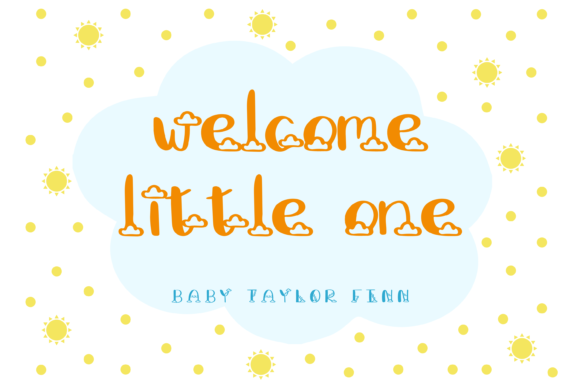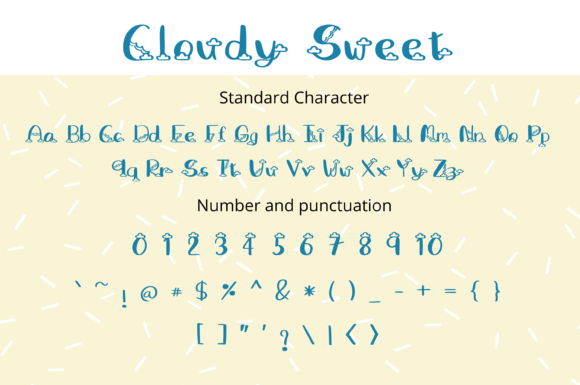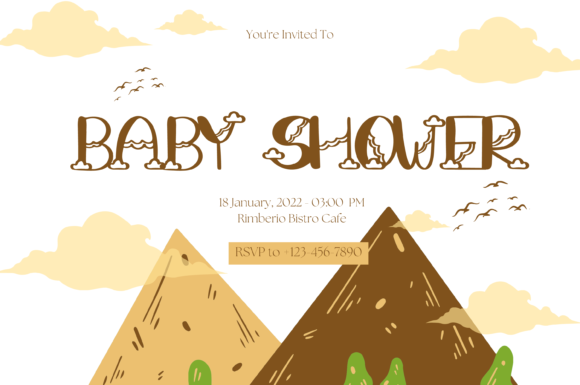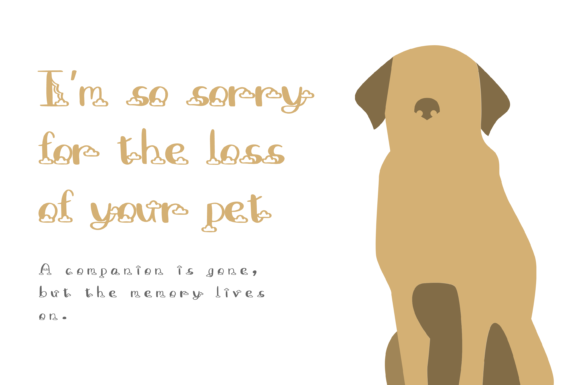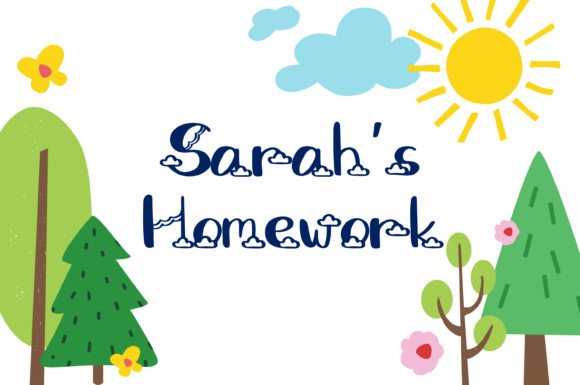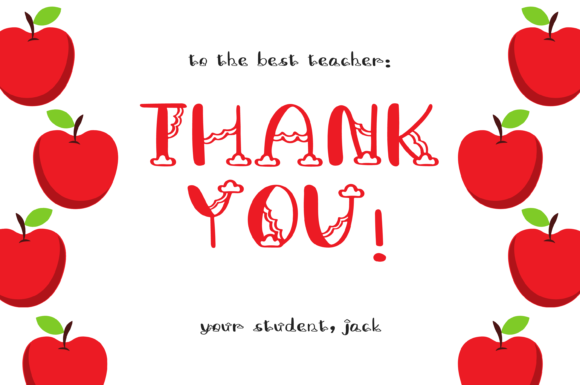
Discover the Whimsical Charm of Cloudy Sweet Font
Are you tired of using the same old fonts for your creative projects? Look no further than Cloudy Sweet Font, a whimsical and sweet decorative font that’s sure to add a touch of magic to your designs. With its unique and playful style, Cloudy Sweet Font can easily be matched to an incredibly large set of projects, making it the perfect addition to your creative toolkit.
What is Cloudy Sweet Font?
Cloudy Sweet Font is a decorative font that’s designed to bring a sense of wonder and enchantment to your designs. Its whimsical style is perfect for projects that require a touch of personality and flair, such as party invitations, branding materials, and social media graphics. With its sweet and playful vibe, Cloudy Sweet Font is sure to capture the attention of your audience and leave a lasting impression.
Features of Cloudy Sweet Font
So, what makes Cloudy Sweet Font so special? Here are just a few of its key features:
- Whimsical design: Cloudy Sweet Font has a unique and playful design that’s sure to add a touch of magic to your projects.
- Highly versatile: This font can easily be matched to an incredibly large set of projects, making it perfect for designers and crafters who like to experiment with different styles.
- Scalable: This font is highly scalable, making it perfect for use on a variety of platforms, from social media graphics to large-format prints.
How to Use Cloudy Sweet Font
So, how can you use Cloudy Sweet Font in your creative projects? Here are a few ideas to get you started:
- Party invitations: Add a touch of whimsy to your party invitations with Cloudy Sweet Font. Perfect for birthday parties, baby showers, and other celebrations.
- Branding materials: Use Cloudy Sweet Font to add a playful touch to your branding materials, such as business cards, brochures, and logos.
- Social media graphics: Add a splash of color and personality to your social media graphics with Cloudy Sweet Font. Perfect for Instagram posts, Facebook graphics, and more.
- Crafting projects: Use Cloudy Sweet Font to add a personal touch to your crafting projects, such as scrapbooking, card making, and DIY gifts.
Tips for Getting the Most Out of Cloudy Sweet Font
Here are a few tips for getting the most out of Cloudy Sweet Font:
- Experiment with different colors: Cloudy Sweet Font looks great in a variety of colors, so don’t be afraid to experiment and find the perfect hue for your project.
- Mix and match with other fonts: Try pairing Cloudy Sweet Font with other fonts to create a unique and eye-catching look.
- Use it sparingly: While Cloudy Sweet Font is perfect for adding a touch of whimsy to your projects, it’s best to use it sparingly to avoid overwhelming your design.
| Font Name | Cloudy Sweet Font |
| Author | AchiArt |